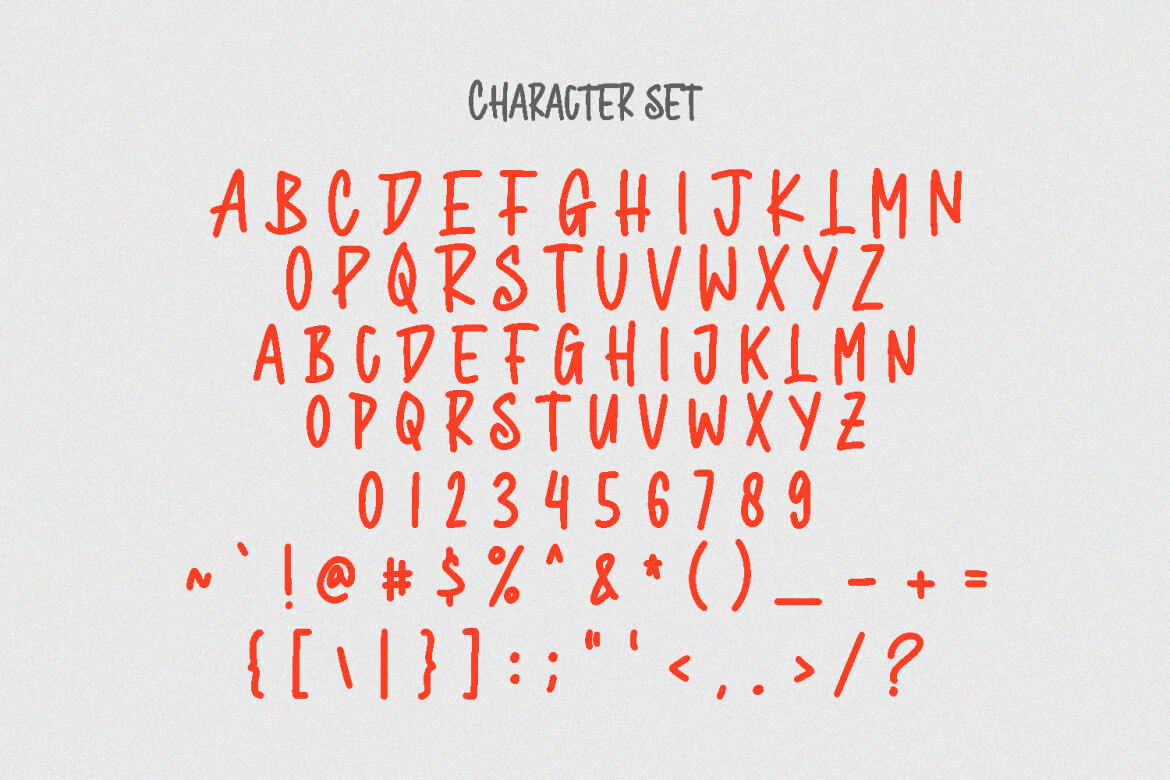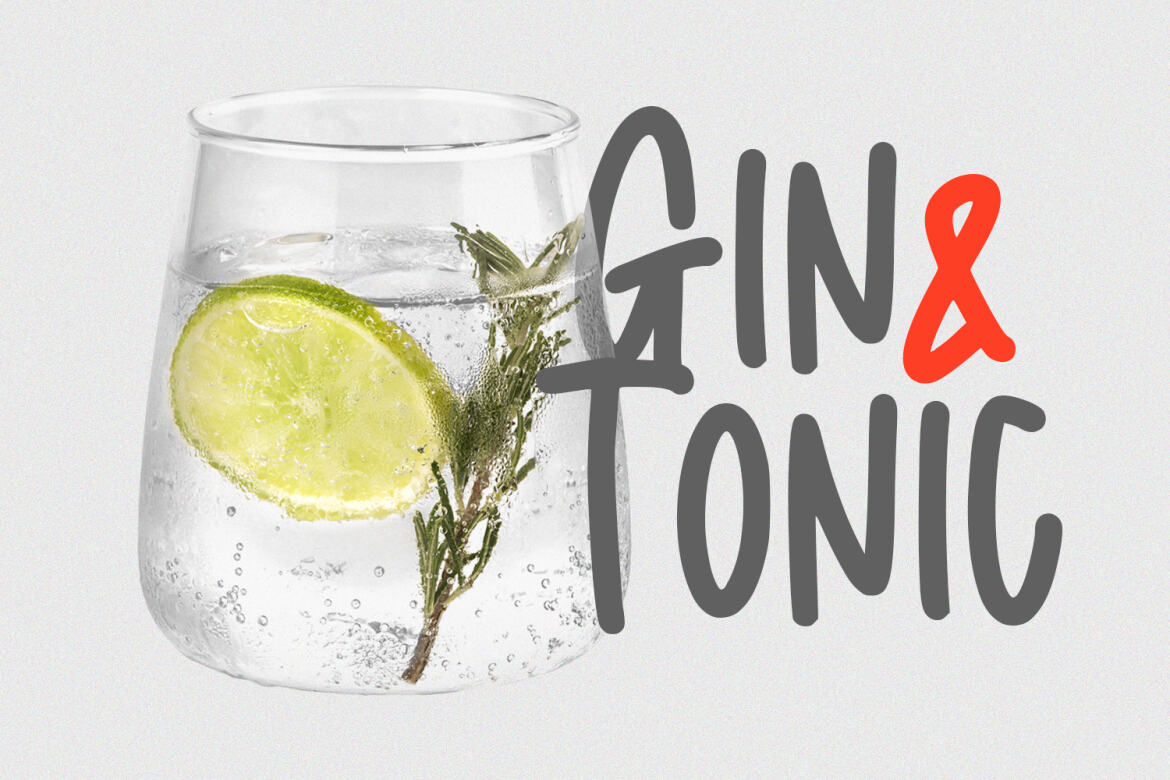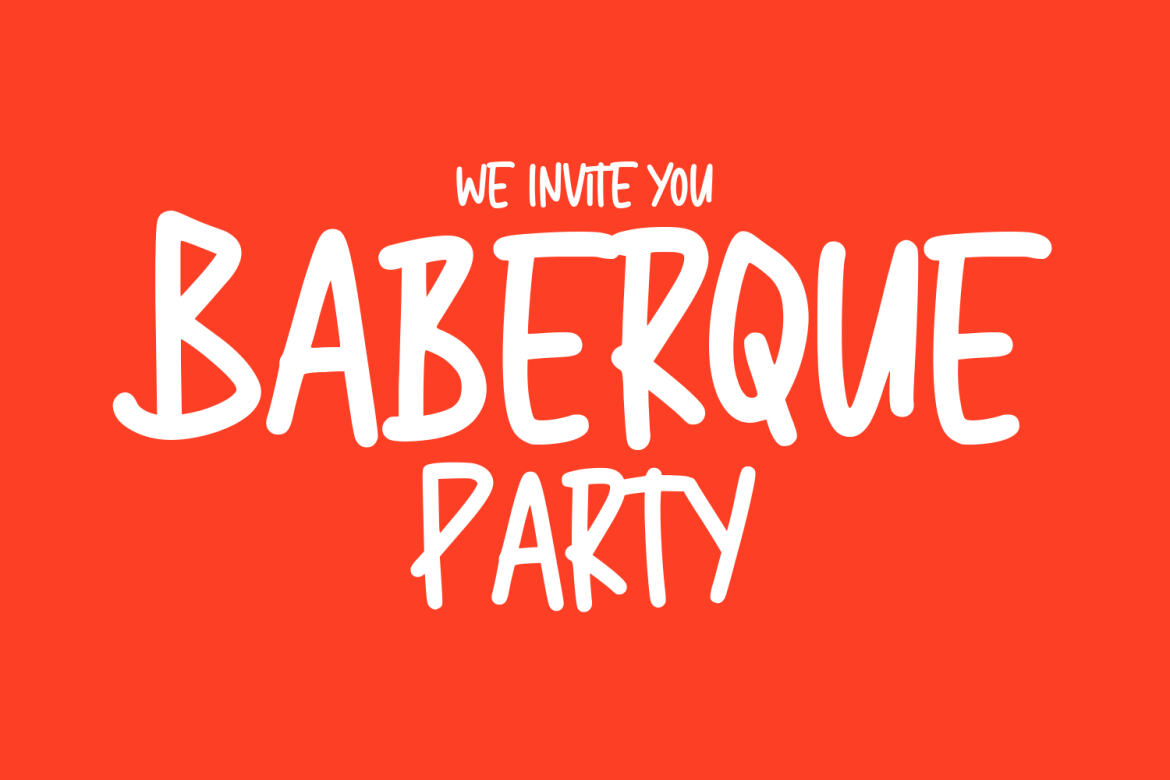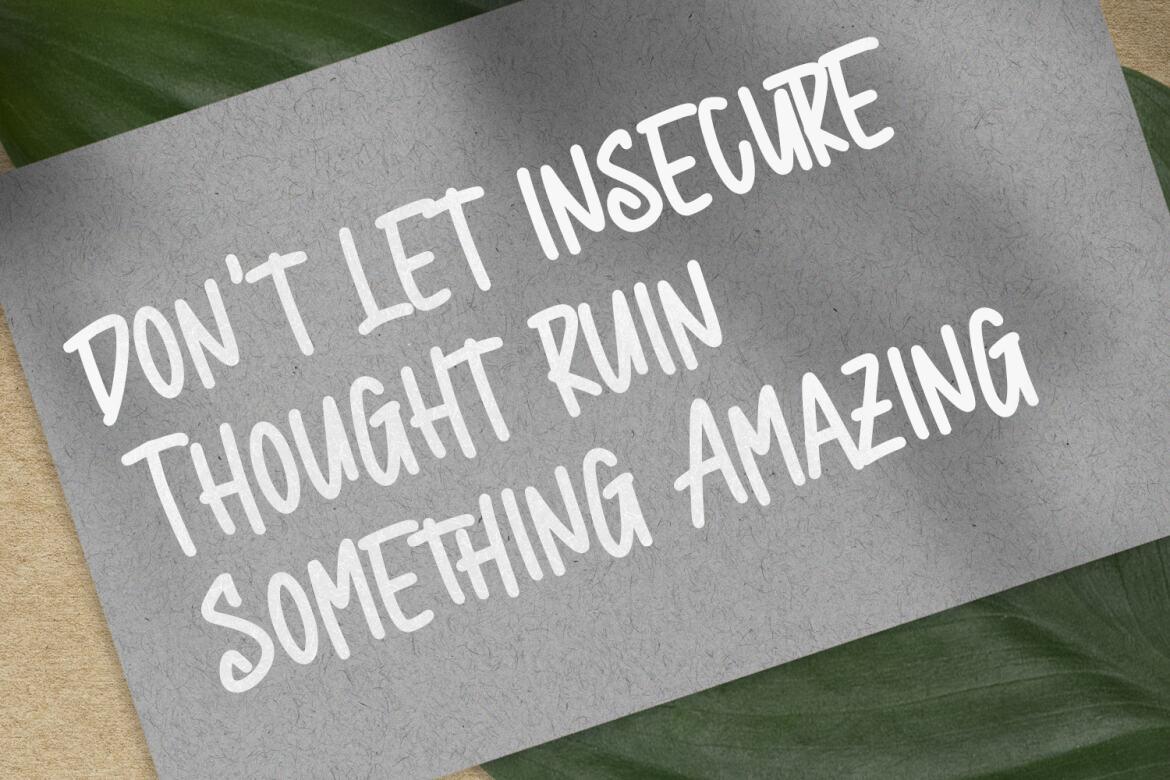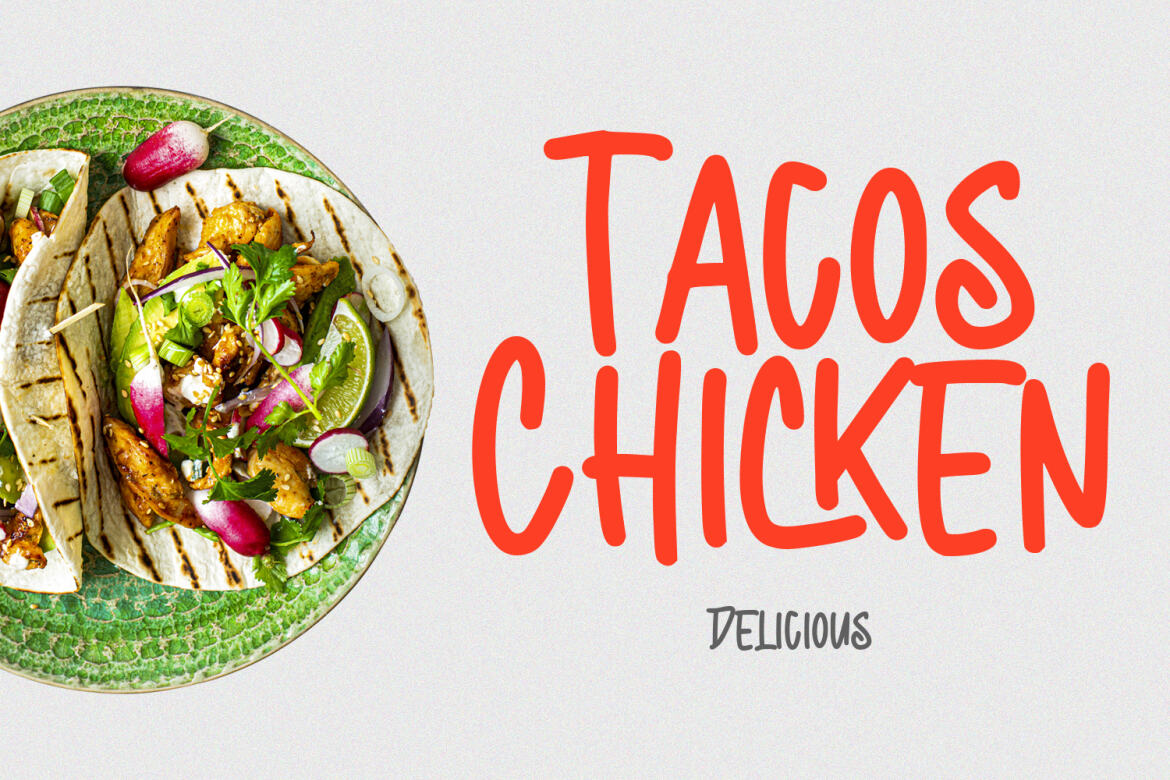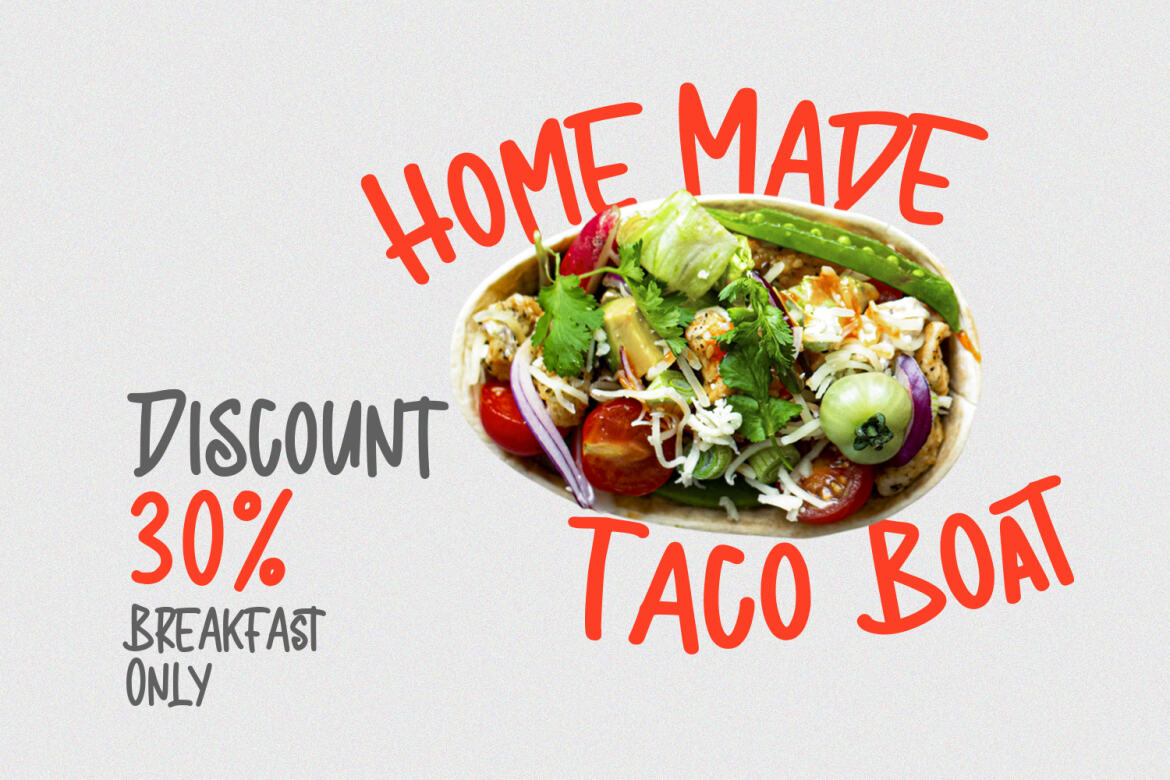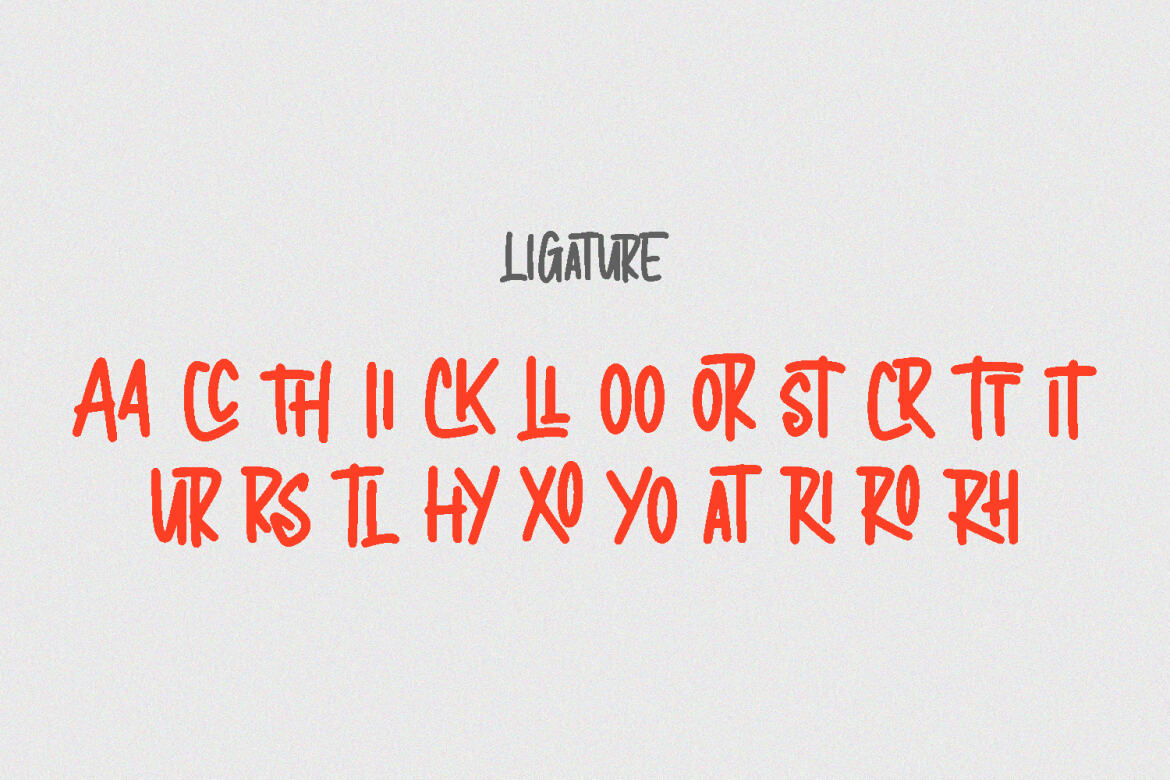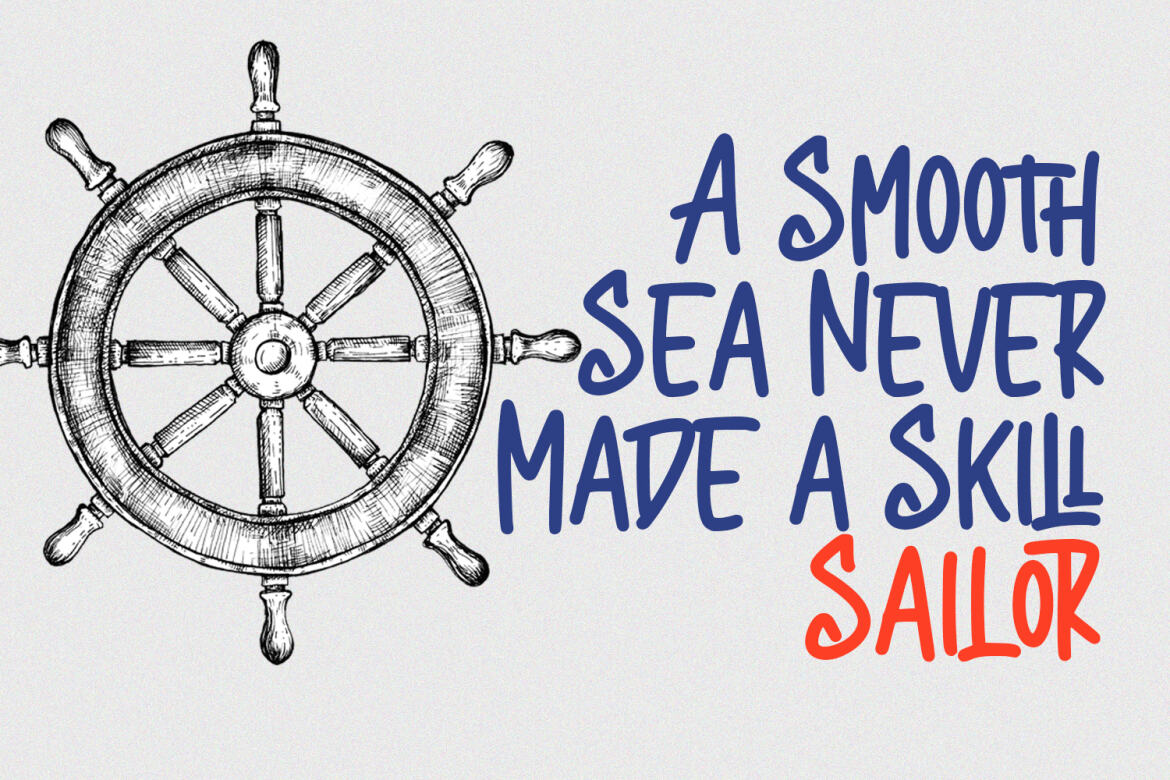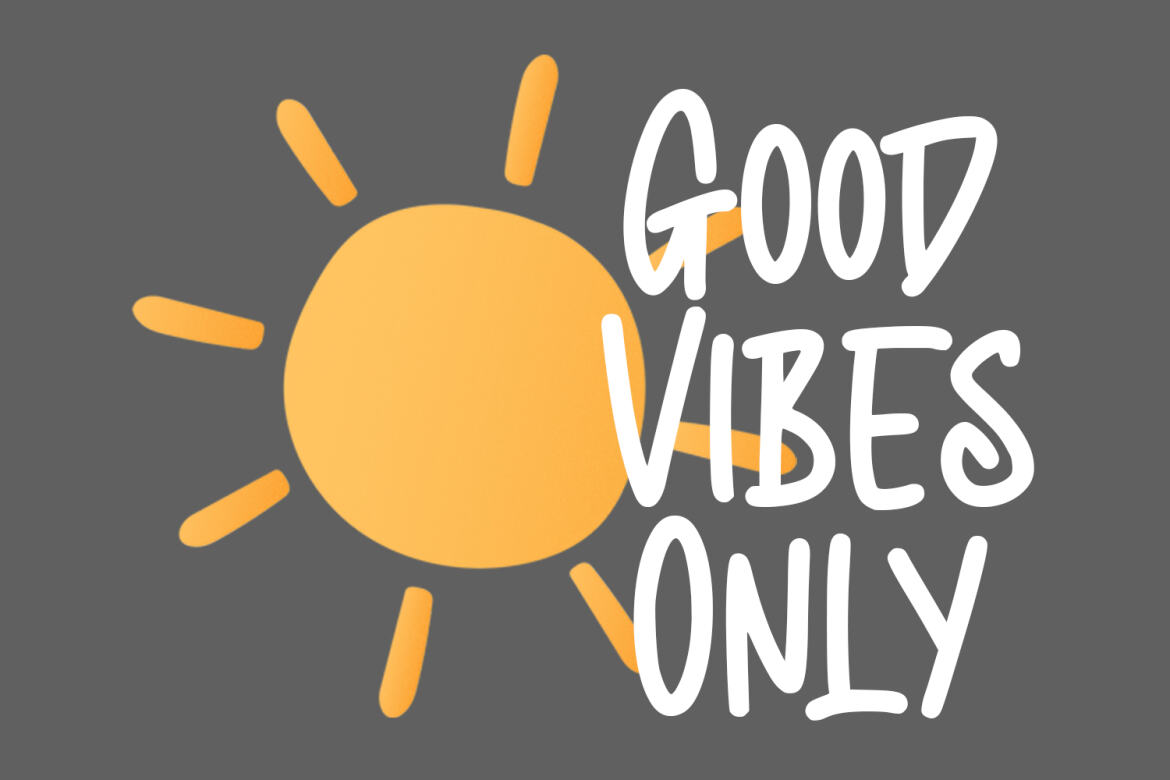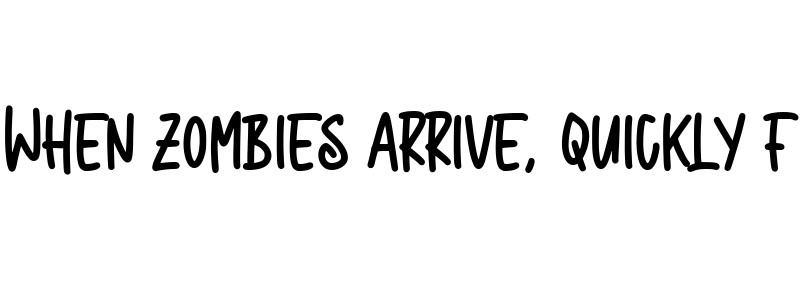
Atheroll FRE Handwritten Font
Atheroll preview
Atheroll
Atheroll is a fancy handwritten font. With bold stroke, fun character with a bit of ligatures and alternates. To give you an extra creative work. Atheroll font support multilingual more than 100+ language. This font is good for logo design, Social media, Movie Titles, Books Titles, a short text even a long text letter and good for your secondary text font with sans or serif. Make a stunning work with Atheroll font.